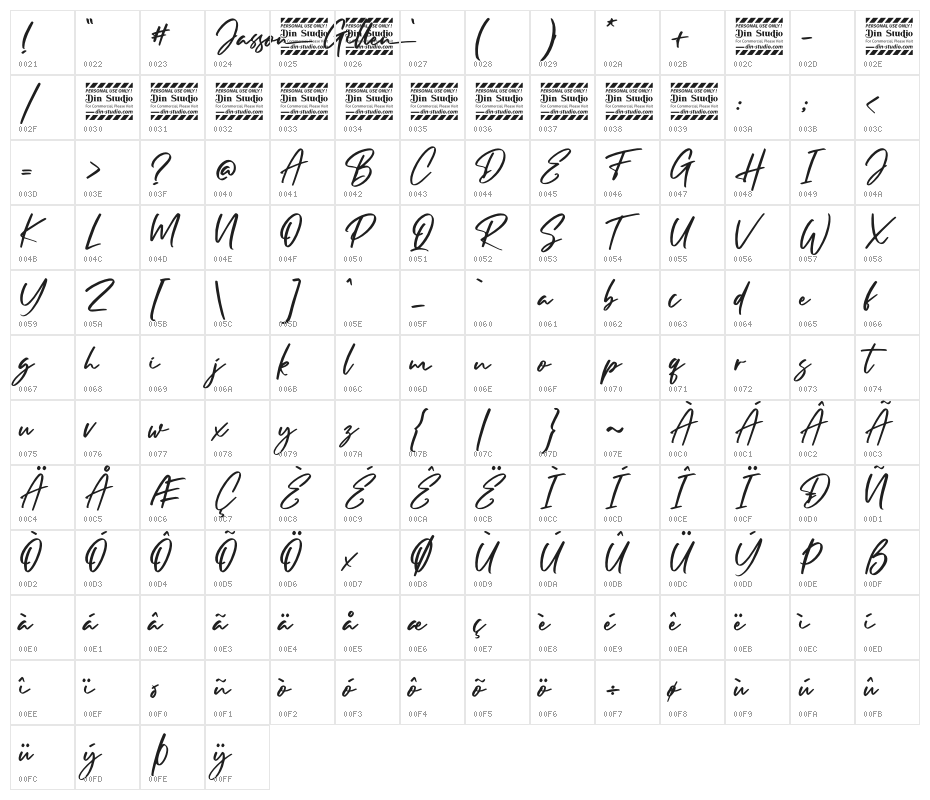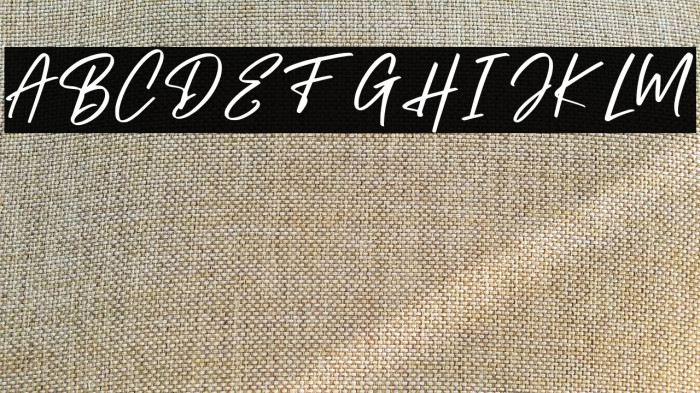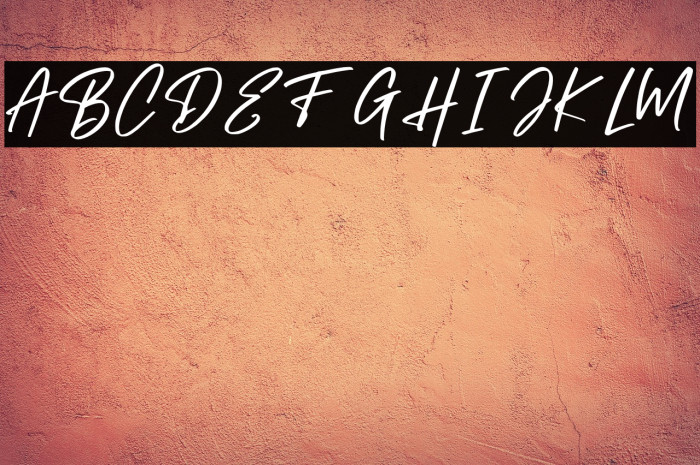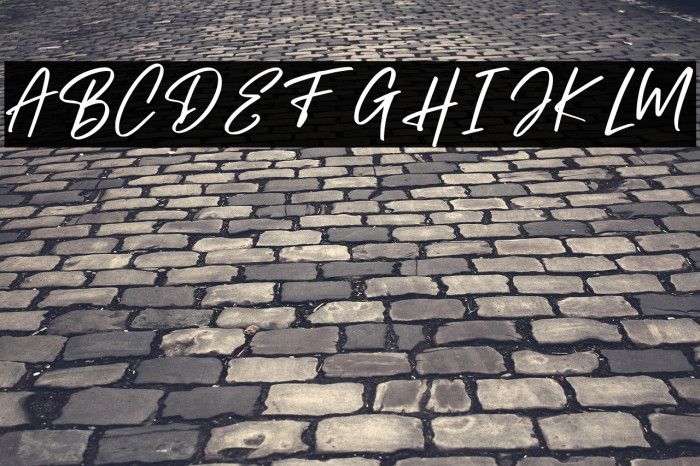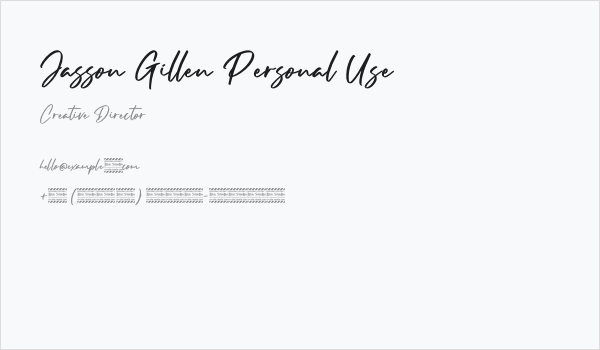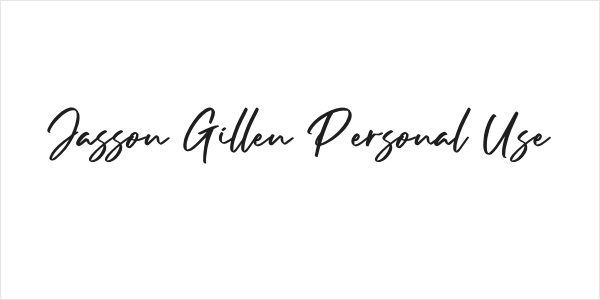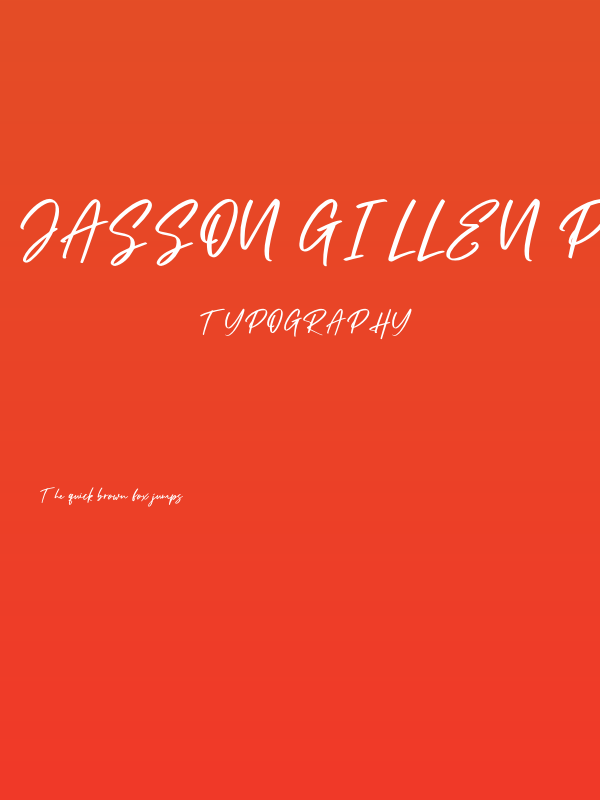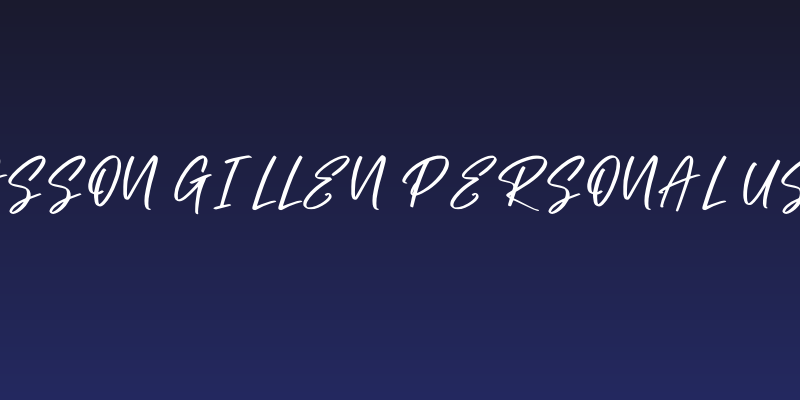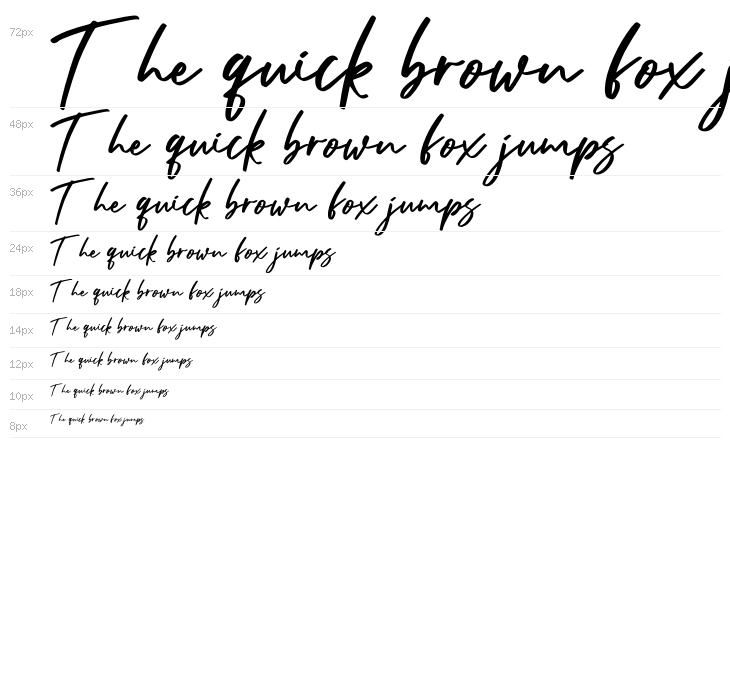
Jasson Gillen Personal Use Font
Jasson Gillen Personal Use Description
This font features a dynamic and fluid script style, characterized by its elegant and flowing letterforms. The uppercase letters are slightly slanted, giving a sense of movement and grace. The lowercase letters maintain a consistent rhythm, with smooth curves and a natural handwritten appearance. The font includes a full set of uppercase and lowercase letters, numerals, and a selection of special characters. Its overall aesthetic is both modern and sophisticated, making it suitable for a variety of design projects that require a personal and artistic touch.
| Proposed Projects | Ideal for wedding invitations, branding, logos, and greeting cards. |